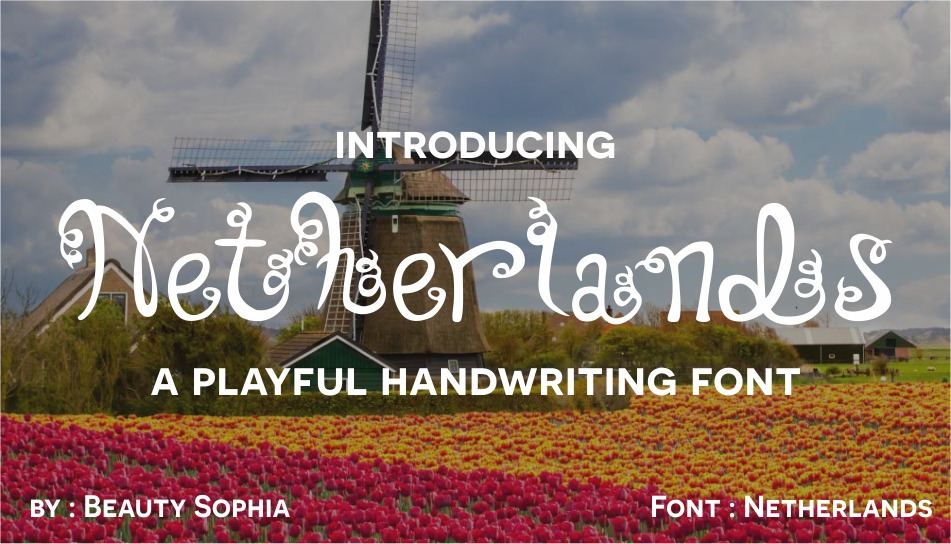
**Introducing the Netherlands Font: Let Your Creativity Take a Trip to the Land of Windmills and Canals**
Embark on a typographic journey to the Netherlands, where picturesque landscapes and captivating culture inspire this enchanting script font. Netherlands Font is a testament to the beauty that awaits in this vibrant country, with its every curve and stroke capturing the essence of windmills standing tall against a vast sky, canals shimmering under the golden sunlight, and the warmth of friendly faces.
**Unleash the Artist Within**
With Netherlands Font, your words will transform into a work of art, flowing effortlessly like the gentle waters of the canals. Its elegant swirls and delicate flourishes add a touch of sophistication and charm to any project, from personal stationery to captivating social media posts. Whether you're a seasoned designer or just starting to explore the world of typography, this font is a versatile companion that will bring your creative visions to life.
**Embrace the Magic of the Netherlands**
As you delve into using Netherlands Font, let its graceful lines take you on a journey through the captivating landscapes of the Netherlands. Picture yourself strolling along cobblestone streets lined with charming houses, the scent of tulips filling the air, and the sound of bicycles cheerfully passing by. Let this font evoke the cozy ambiance of a traditional Dutch café, where laughter and conversation intertwine amidst the aroma of freshly brewed coffee.
**Inspire and Captivate**
Whether you're crafting heartfelt letters, designing eye-catching marketing materials, or simply adding a touch of elegance to your personal projects, Netherlands Font is the perfect choice to inspire and captivate your audience. Its timeless beauty and versatility make it a font that will stand the test of time, ensuring your creations leave a lasting impression.
**Make Your Mark, One Letter at a Time**
Join the creative journey and make Netherlands Font your go-to companion for all your typographic adventures. Let your words dance across the page, carrying with them the spirit of the Netherlands and leaving a trail of beauty in their wake. With every letter you write, you'll not only be communicating your message but also sharing a piece of this enchanting country with the world.